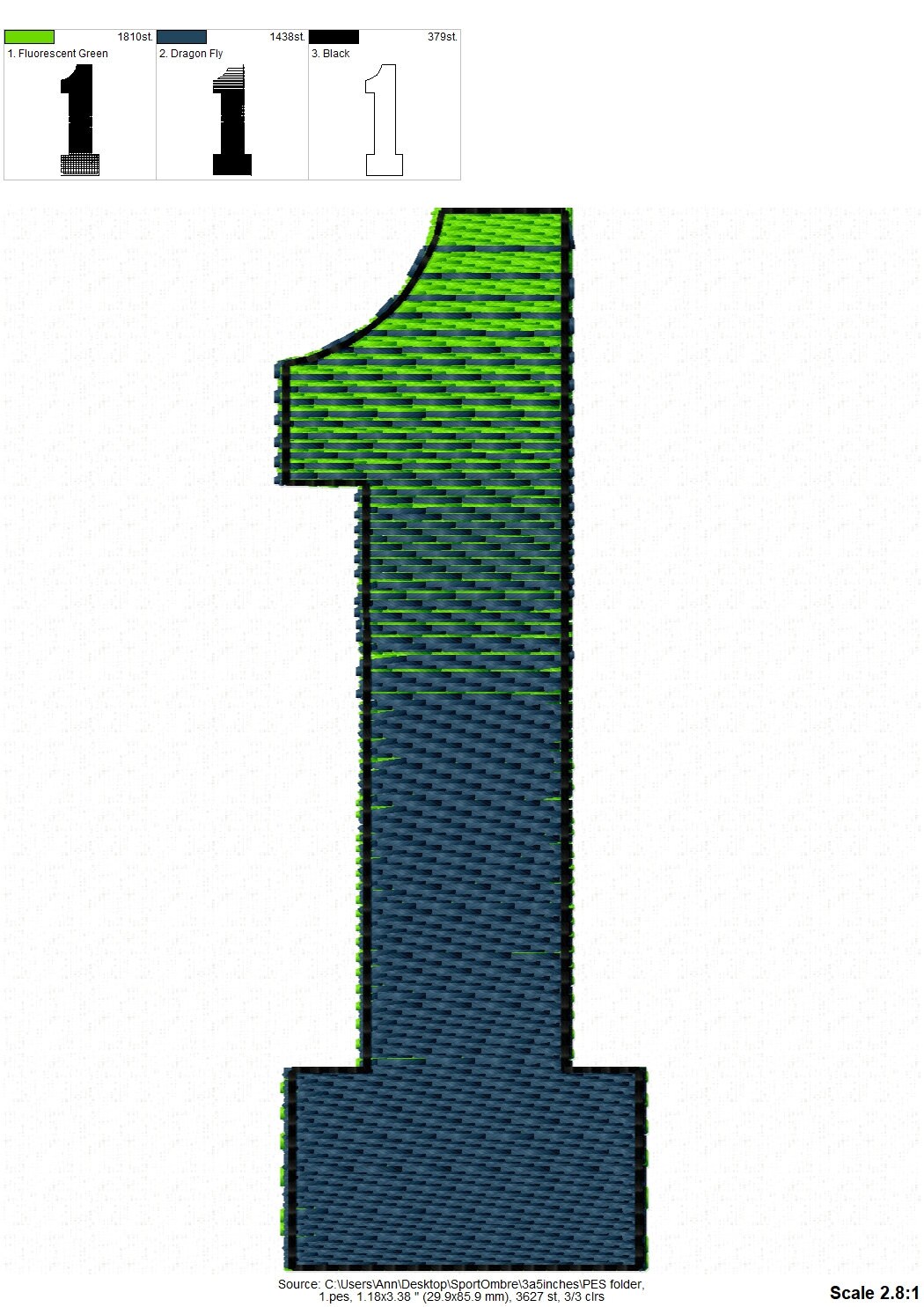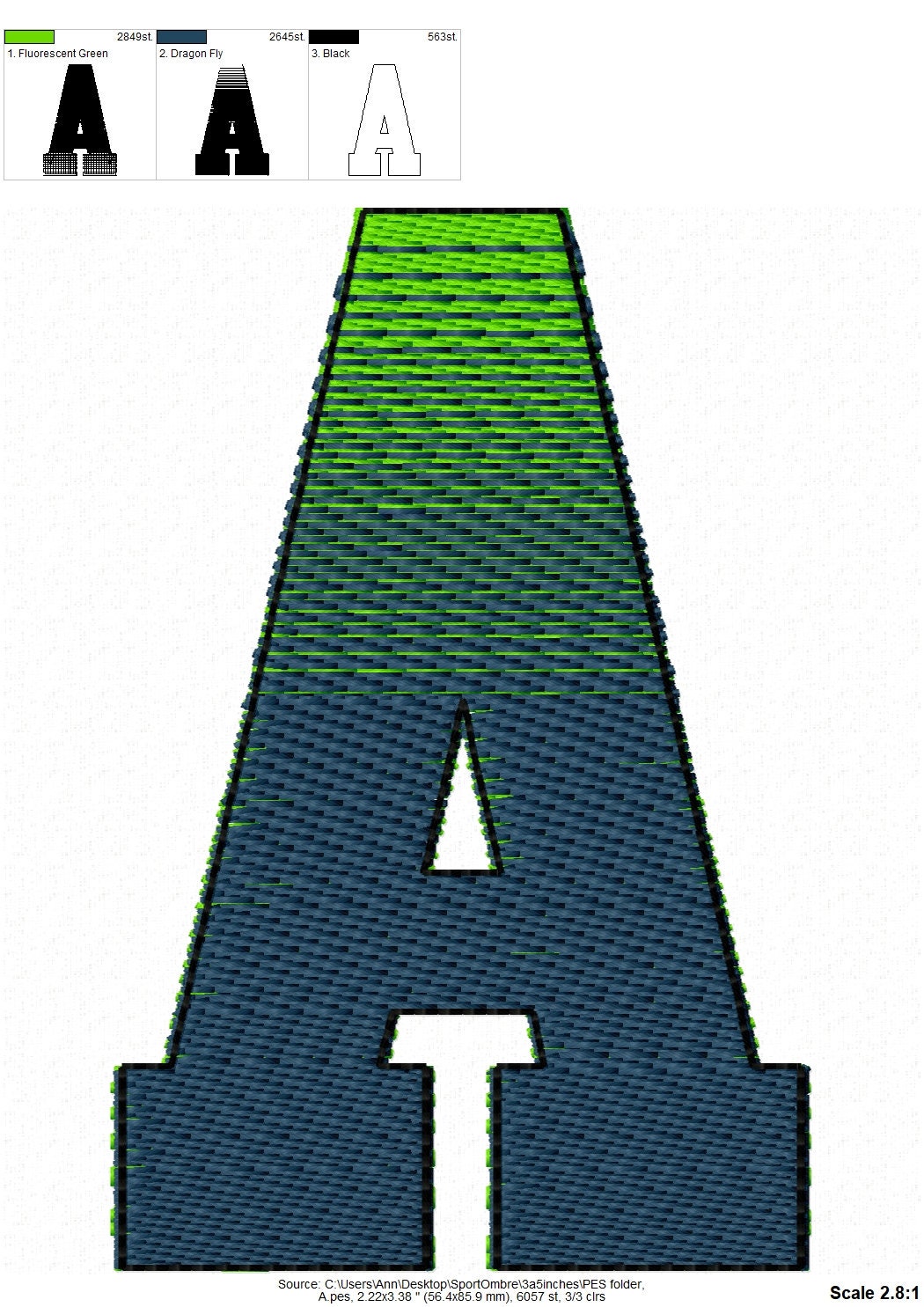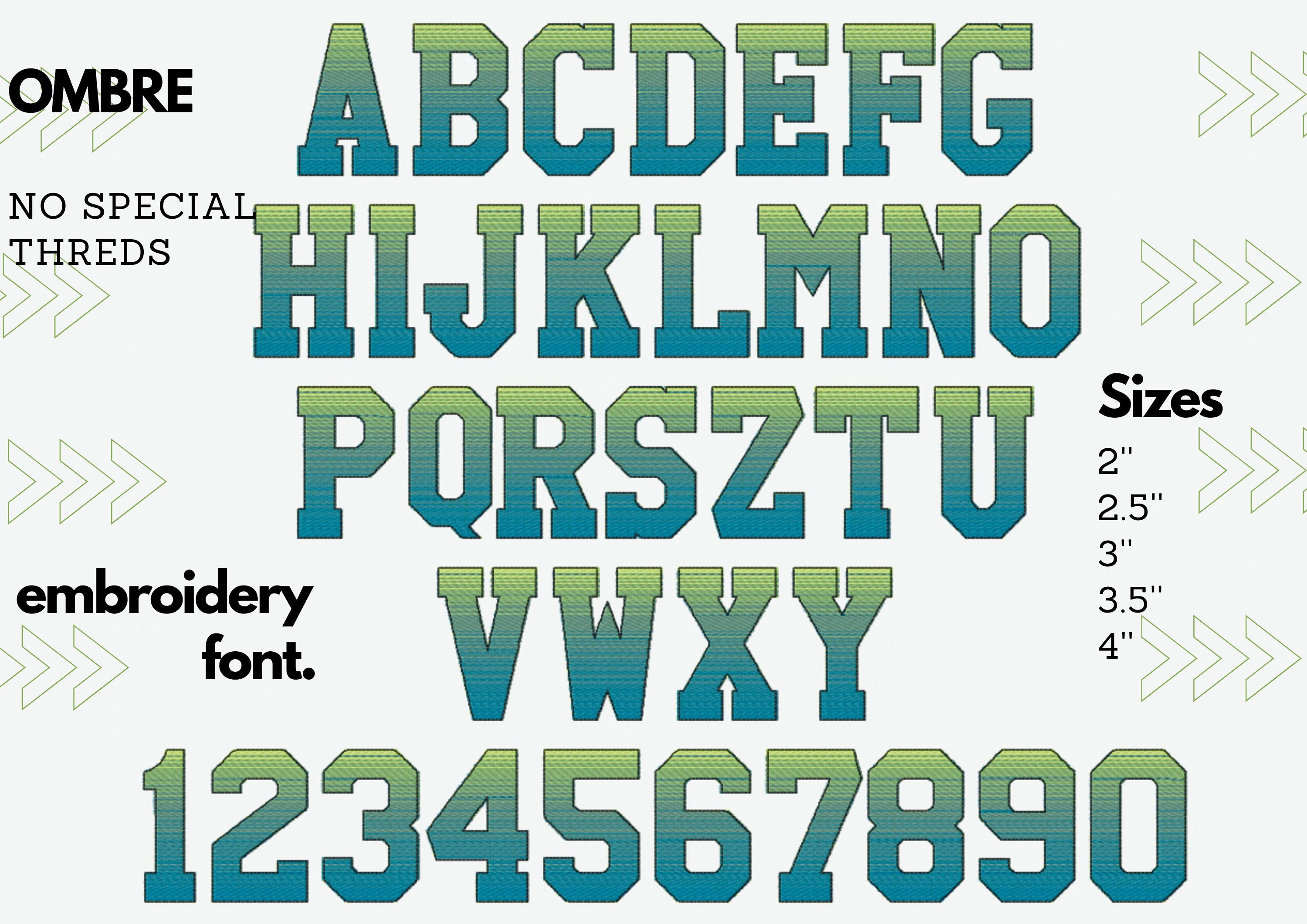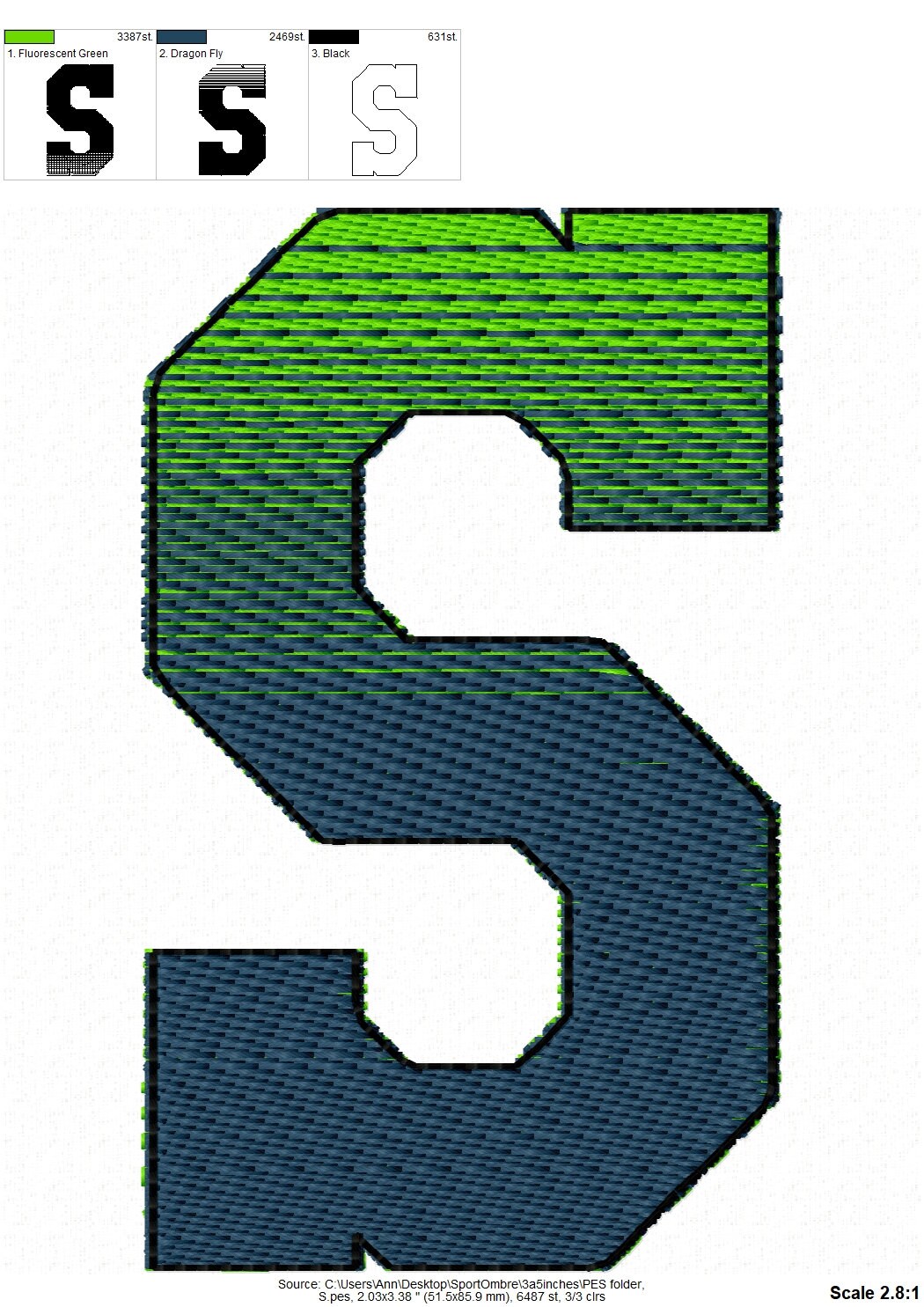
Rainbow Iridescent ombre font embroidery design 2 Color Monogram varsity embroidery sport block FONT alphabet machine embroidery gradient
No special thread is required!
It looks incredible! For this font, regular solid color threads are used (not multi-colored).
The letters are stitched using usual embroidery threads, just two colors to make a nice Iridescent effect!
The pattern creates this amazing effect all by itself. Iridescent comes thanks to the design, it has 2 colors. Stitching on one side of letter with one color and then on the other side stitches with another color.